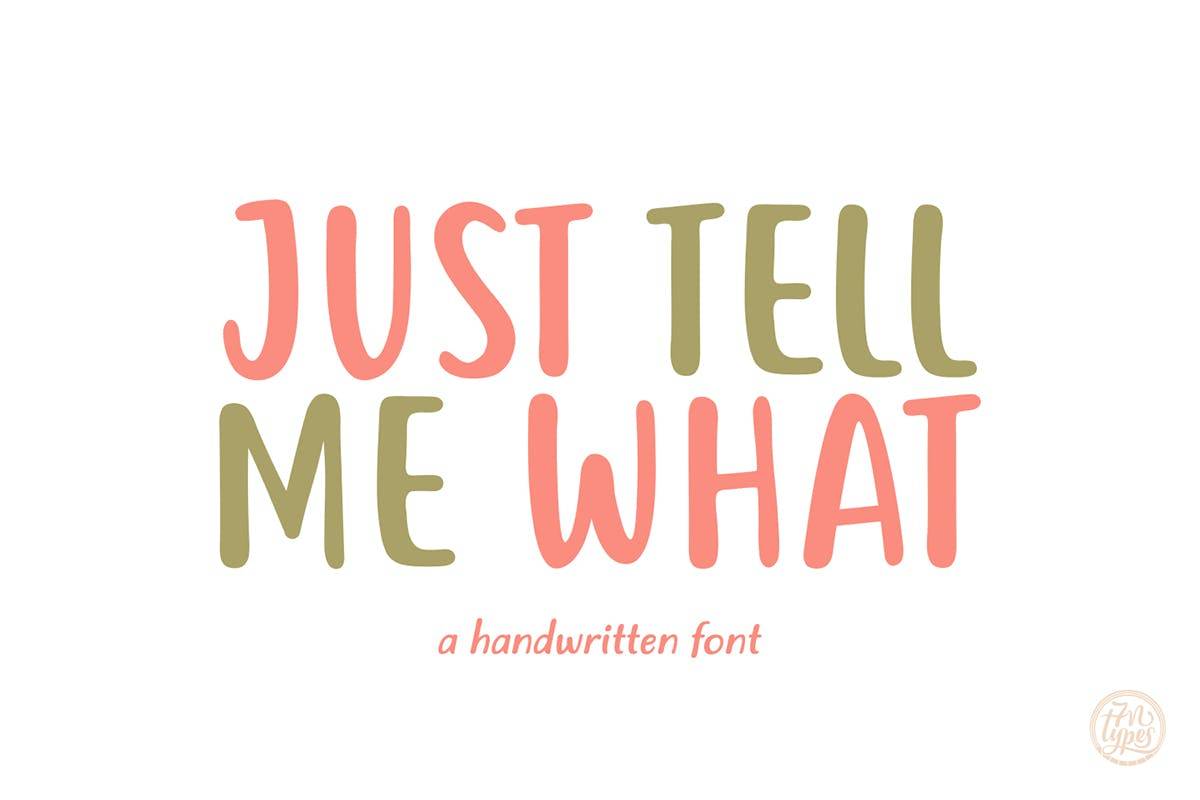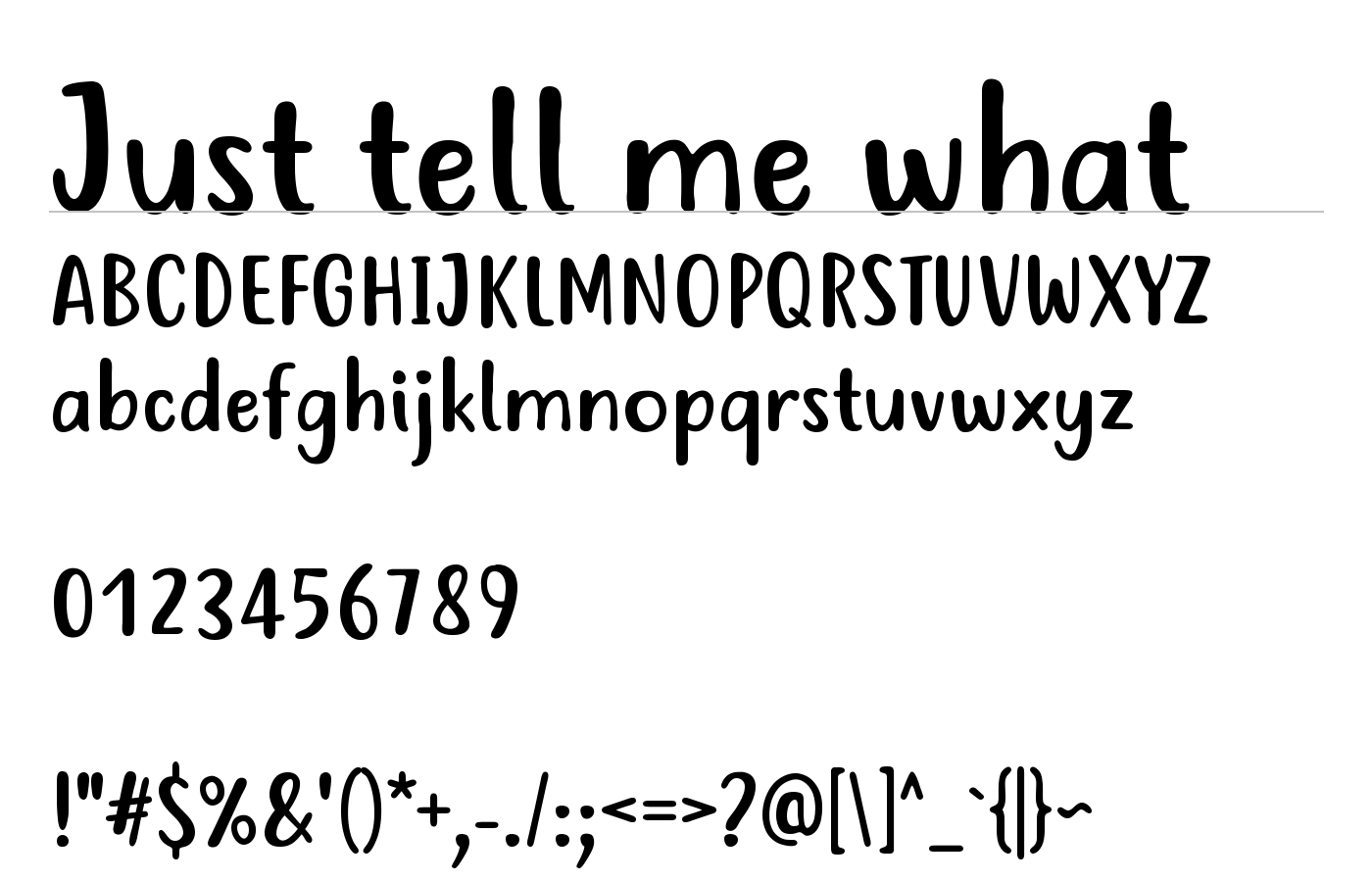
Just Tell Me Handwriting Demo Font
Just Tell Me Handwriting Demo Font is a trial version of a flowing yet round handwritten font. This one is coming to you from the latest work of 7NTypes. The font breathes a soft vibe which gives the text a relaxed and happy feeling. Hence, it is fun to use it on book covers such as childrenโ€™s books, packaging, logo, and branding as well. So, go get it now!